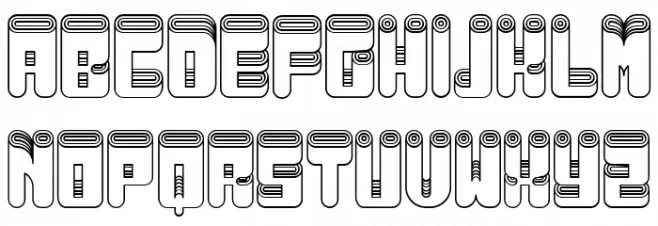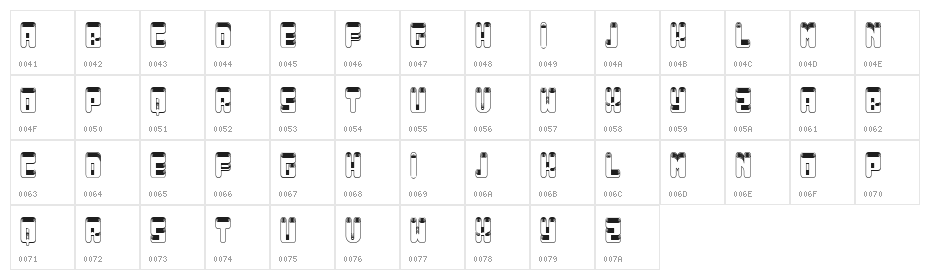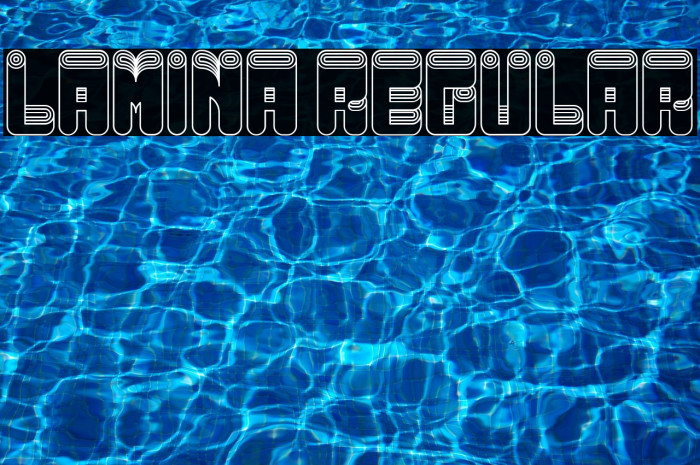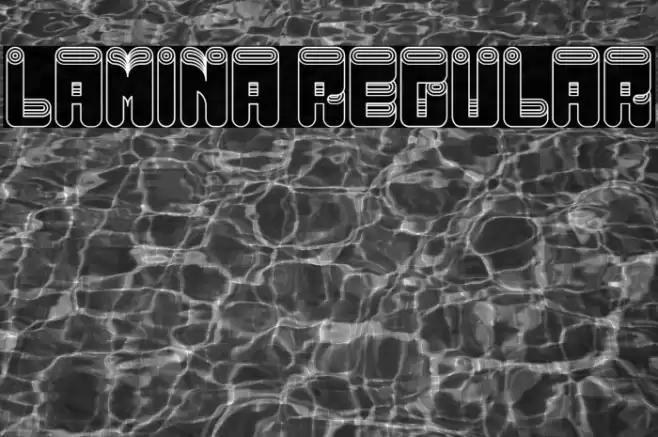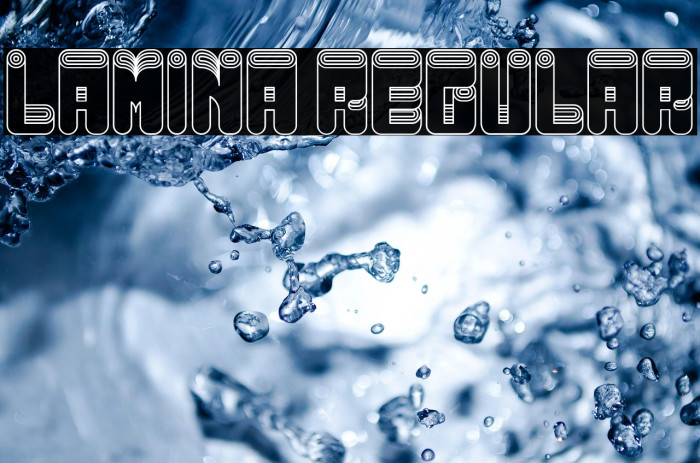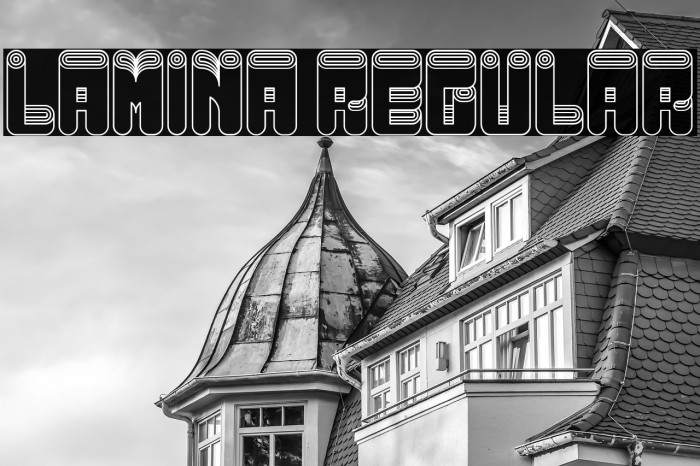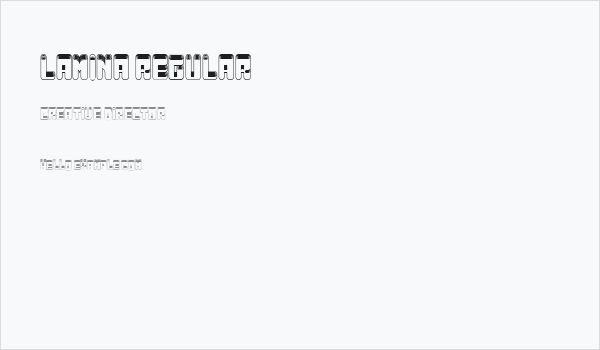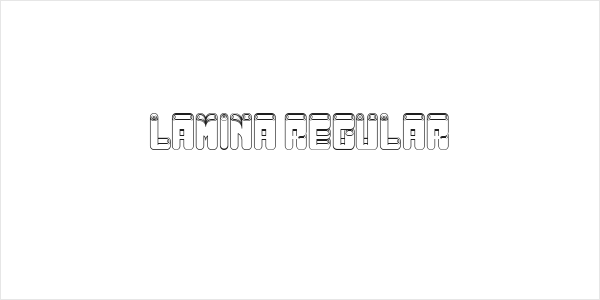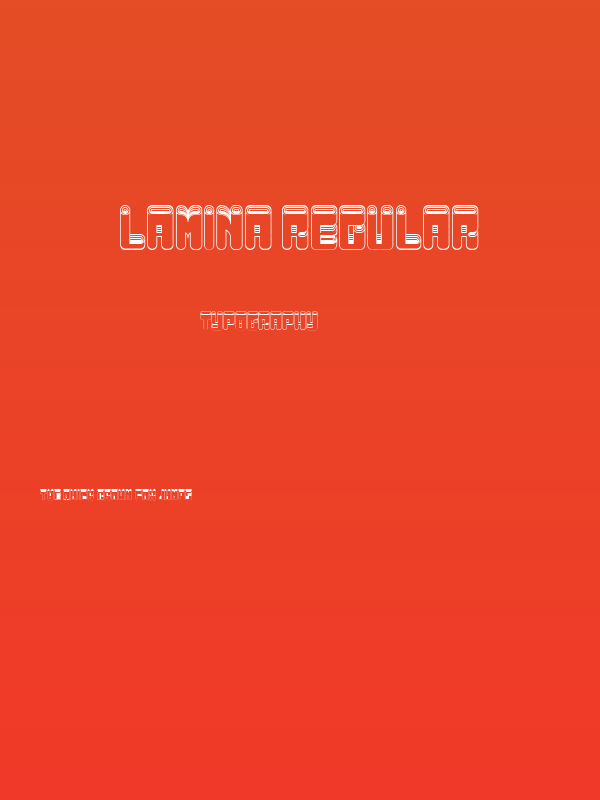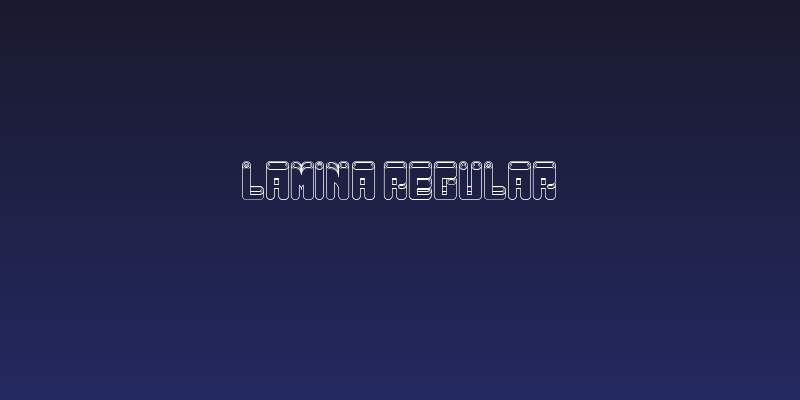
Lamina Regular Font
Lamina Regular Description
This font features a unique and playful design with a three-dimensional effect, giving the impression of folded paper or layered ribbons. Each character is outlined, creating a hollow appearance that enhances its decorative style. The font maintains a consistent width and height across all characters, ensuring uniformity and balance. Its intricate detailing and bold outlines make it stand out, ideal for creative and artistic projects. The font's whimsical nature and geometric structure lend it a modern yet playful aesthetic, suitable for eye-catching designs.